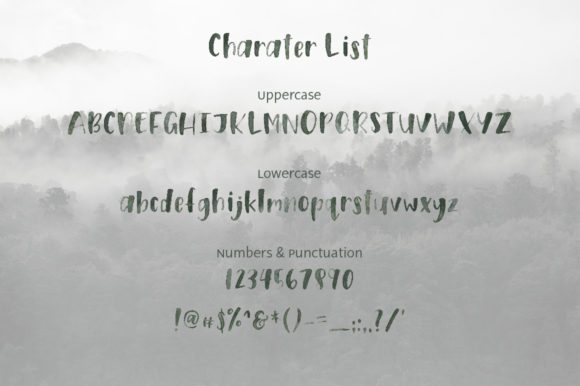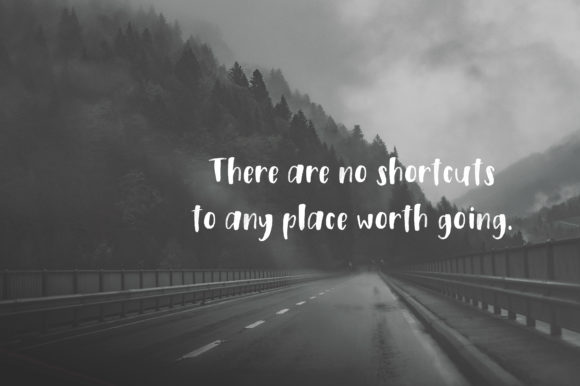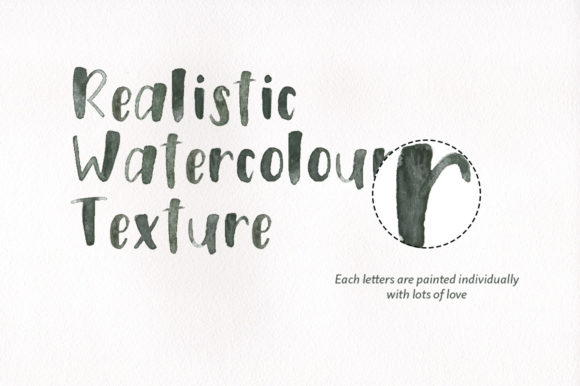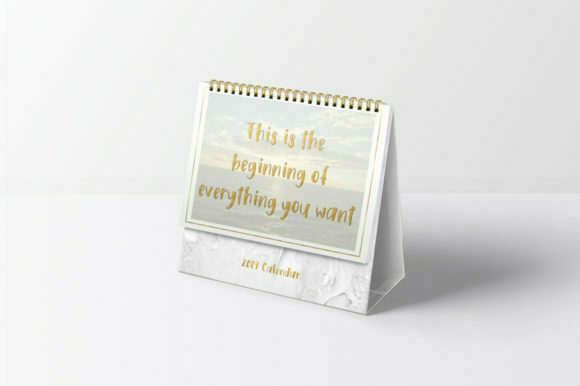
Misty Forest Font
About Misty Forest Font
Hallimshy is indeed a delightful and whimsical color font that exudes a unique and charming feel. With its playful and imaginative design, it can inspire creativity and add a touch of whimsy to your projects.
This font is particularly well-suited for various creative endeavors, such as designing greeting cards, crafting personalized invitations, creating illustrations, or adding a fun element to digital designs. Its cute and authentic charm can bring a sense of joy and lightheartedness to any project.
Feel free to explore different sizes, colors, and layering options to create eye-catching compositions and convey your desired aesthetic. Hallimshy’s whimsical nature lends itself well to playful typography and imaginative layouts.